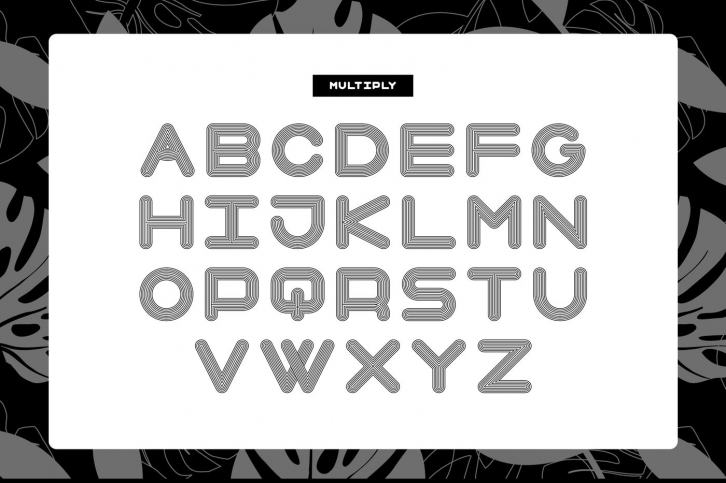
Introducing Season font in 4 weights - Regular, Bold, Extrabold, Multiply
Season font is rounded edged square sans serif font with all uppercase letters, Numerals, and punctuations. The season has following weights:
- Regular
- Bold
- Extrabold
- Multiply
All weights have uppercase letters, numerals and punctuations.